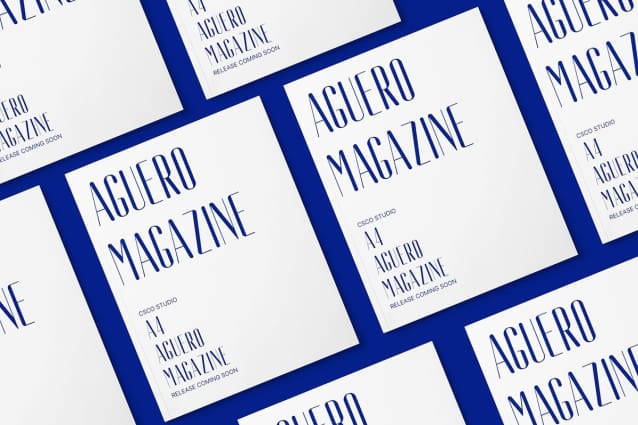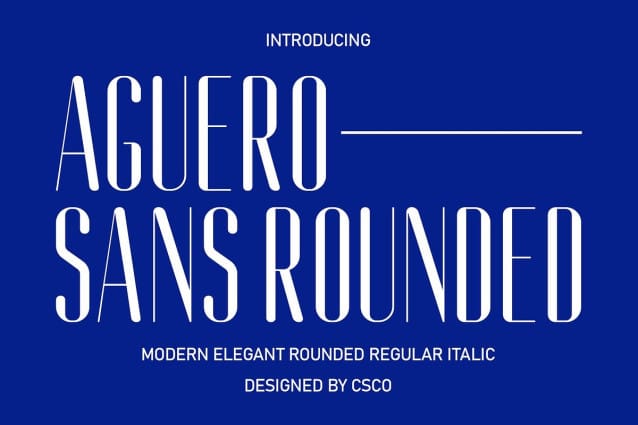
Aguero Sans Rounded Font
Aguero Sans Rounded Font: Bold and Rounded Sans Serif. High Contrast and Condensed Aguero Sans Rounded features a condensed sans serif design with striking contrast, making it ideal for impactful typography.
Rounded Shapes for Softness The font’s rounded shapes add a touch of softness to its bold appearance, creating a harmonious balance between structure and warmth.
Versatile and Dynamic With its high contrast and condensed form, This font offers versatility and dynamism, suitable for a wide range of design applications.
Perfect for Modern Projects Whether used in headlines, posters, or branding materials, This font brings a contemporary edge with its bold yet rounded aesthetic.
Dynamic Elegance This font combines the boldness of high contrast with the softness of rounded shapes, resulting in a font that exudes dynamic elegance. Its versatility and modern appeal make it a perfect choice for a variety of design projects, where impact and sophistication are key.